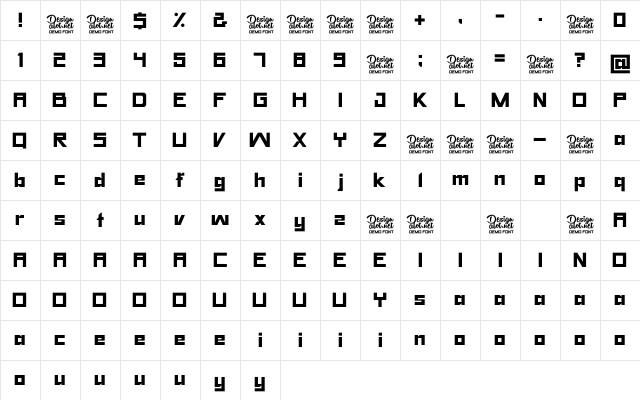
Yet Untitled Demo Regular
Foundry: Design a Lot
Designer: Bogdan Casota
Design Context for Yet Untitled Demo
Yet Untitled Demo is a composed and adaptable typeface that performs quietly and consistently across a wide range of design contexts.